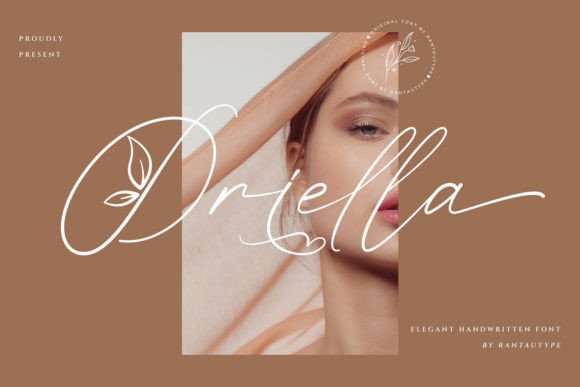
Oriella: The Stylish Handwritten Font for Makers and Crafters
My cutting machine is humming, a fresh sheet of sticker paper is waiting, and the scent of lavender wax fills the air from my latest candle batch. This is my favorite kind of afternoon—the moment a product idea becomes tangible. Today, I’m designing the labels. The blank canvas in my design software feels both exciting and daunting; the text needs to convey the gentle, handmade essence of the candle itself. I scroll through my font library and, as always, Oriella catches my eye. This Script Handwritten Font isn’t just another typeface; it’s a creative partner. Its effortlessly stylish curves and natural flow feel like I’m writing the label myself, lending that authentic, personal touch my customers love. This is where the magic starts: seeing Oriella come to life on a real product.
Discovering Oriella’s Unique Handwritten Charm
Oriella is more than a digital asset; it’s a personality. As a Script Handwritten Font, it possesses a distinct charm that bridges elegant artistry and approachable warmth. The letterforms are beautifully irregular, with subtle variations in weight and connection that mimic true penmanship. This isn’t a rigid, perfect script; it has a lively, organic rhythm. When I use Oriella for my shop’s branding on packaging tape or a thank-you note included with orders, it instantly communicates care and craftsmanship. The font’s stylish look is its greatest asset—it feels contemporary yet timeless, suitable for a rustic farmhouse sign or a minimalist wedding invitation. That versatile, interesting character is exactly why it fits a wide pool of designs, from my cozy candle labels to a friend’s vibrant birthday party printables.
Using Oriella for Wedding Invitations and Elegant Branding
When a client requested custom wedding invitations, the mood board was full of soft colors and delicate illustrations. The text needed to harmonize, not dominate. Oriella, as a Script Handwritten Font, became the cornerstone of the entire suite. We used it for the couple’s names on the invitation cover, creating a spectacular, focal point that felt personal and romantic. For the details—venue, time, RSVP information—I paired Oriella with a clean, thin sans serif font. This pairing ensured elegance without sacrificing readability. The same Oriella font carried through to the welcome sign, seating cards, and even the digital wedding website graphics, creating a cohesive and luxurious brand identity for their special day. This is where its versatility shines: it scales from a large display piece to smaller text on tags, always maintaining its stylish integrity.
Designing Printable Wall Art and Digital Downloads with Oriella
The market for digital downloads is thriving, and the font choice can make or break a printable’s appeal. I recently created a set of inspirational kitchen wall art quotes. Oriella was the perfect Font to bring those phrases to life. Its handwritten quality makes the motivational words feel like a personal pep talk, not a generic poster. For digital planners and sticker sheets, using Oriella for headers and decorative elements adds a layer of crafted beauty that users appreciate. When designing these items, I always check that the font includes the necessary file formats and has robust multilingual support if needed, and confirm the commercial license allows me to sell the finished digital products. Oriella’s stylish look translates beautifully into PNG and SVG files for cutting machines, allowing crafters to create physical art from my digital designs.
Creating Product Labels and Packaging for Handmade Goods
Back to my lavender candle. The label is a tiny canvas that tells a story. A generic font would undermine the handmade promise. Using Oriella for the product name “Lavender Dream” immediately elevates it. The Script Handwritten style suggests natural, artisanal quality. For the supplemental information (weight, ingredients), I again lean on a simple sans serif pair. This contrast is crucial for small labels to remain legible. The same principle applies to boutique clothing tags, soap wrappers, and ceramic mug packaging. Oriella helps these items stand out in a crowded marketplace. When printing, I always test a proof at the actual size to ensure the delicate script details are clear and don’t blur or fill in, especially on small stickers or engraved surfaces.
Oriella for Seasonal Craft Designs and Holiday Shop Items
Seasonal shifts in my shop are a creative joy. Autumn harvest signs, Christmas ornament tags, Valentine’s Day card kits—each has its own tone. Oriella’ incredible versatility means it adapts to these moods seamlessly. For a fall “Gather & Give Thanks” wooden sign, the font’s flowing letters complement rustic wood grain. For festive holiday gift tags, I might use a bolder weight or available alternates within the Oriella font family to add playful swashes on capital letters. Designing a mockup for a spring floral tote bag, I placed the phrase “Bloom Where You’re Planted” using Oriella, and it looked spectacular, instantly conveying a gentle, growth-oriented message. This Font becomes a tool for emotional appeal, helping seasonal products connect faster with their intended audience.
Crafting Greeting Cards and Personal Stationery with a Handwritten Feel
Nothing replaces a handwritten card, but when producing a line of greeting cards for my shop, Oriella gets me close. Its natural bounce and connection between letters simulate the feeling of a personal note. For a birthday card, using Oriella for the main “Happy Birthday” message, perhaps with a few decorative ligatures enabled, creates a celebratory and custom feel. I then use a simpler font for the inside message template to ensure clarity. For more formal stationery, like thank-you cards or business correspondence inserts, Oriella lends a sophisticated, yet not overly formal, handwritten signature to the brand name or logo. This versatility across casual and semi-formal applications makes it a staple in my stationery design toolkit.
Font Pairing and Readability for Physical Products and Mockups
A successful design often relies on contrast. Oriella is a stunning display Script Handwritten Font, but it’s best used for headlines, names, short phrases, and decorative wording. For longer text blocks on product descriptions, packaging instructions, or invitation details, pairing it with a complementary typeface is essential. My go-to is a neutral, geometric sans serif. This combination lets Oriella shine as the artistic element while the paired font handles heavy information duties cleanly. When preparing mockups for my online shop listings—images of candles with labels, cards on tables, mugs in hands—I ensure the text hierarchy is clear. Oriella attracts the eye in the mockup, convincing potential customers of the product’s quality and style before they even read the description.
From the moment I first typed a test phrase in Oriella, I saw its potential. It wasn’t just letters on a screen; it was a style, a mood, a creative voice ready to be printed, cut, and shared. That handwritten charm translates into real customer perception, elevating simple tags into branded artifacts and turning digital templates into keepsakes. Whether you’re pressing it onto a shirt, etching it onto a sign, printing it on cardstock, or embedding it in a downloadable PDF, Oriella performs. It fits the wide pool of designs we makers navigate every day, bringing a consistent, stylish, and incredibly versatile handwritten touch to everything we create. The final product, bearing that text, always feels a little more special, a little more crafted, and absolutely ready to find its new home.